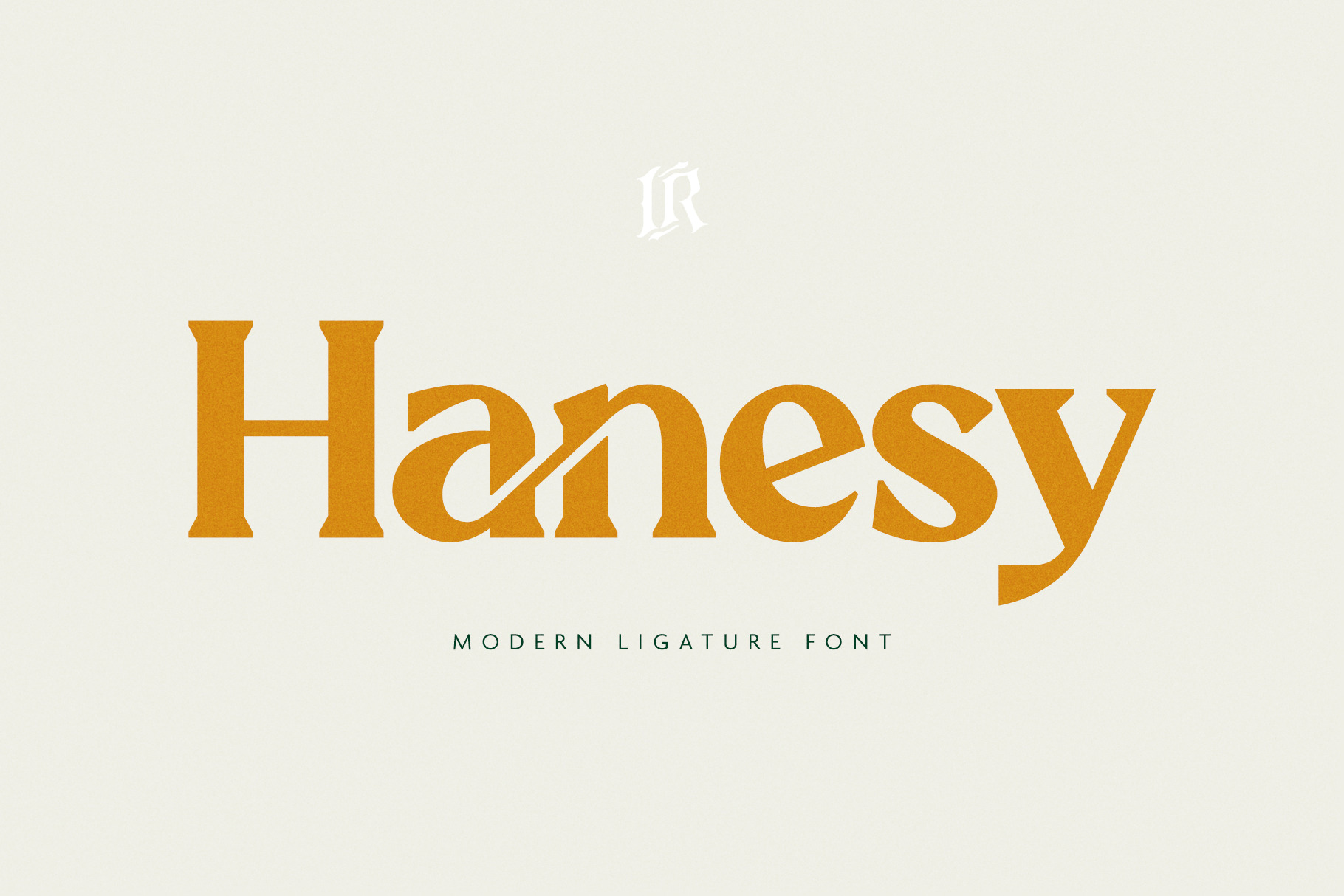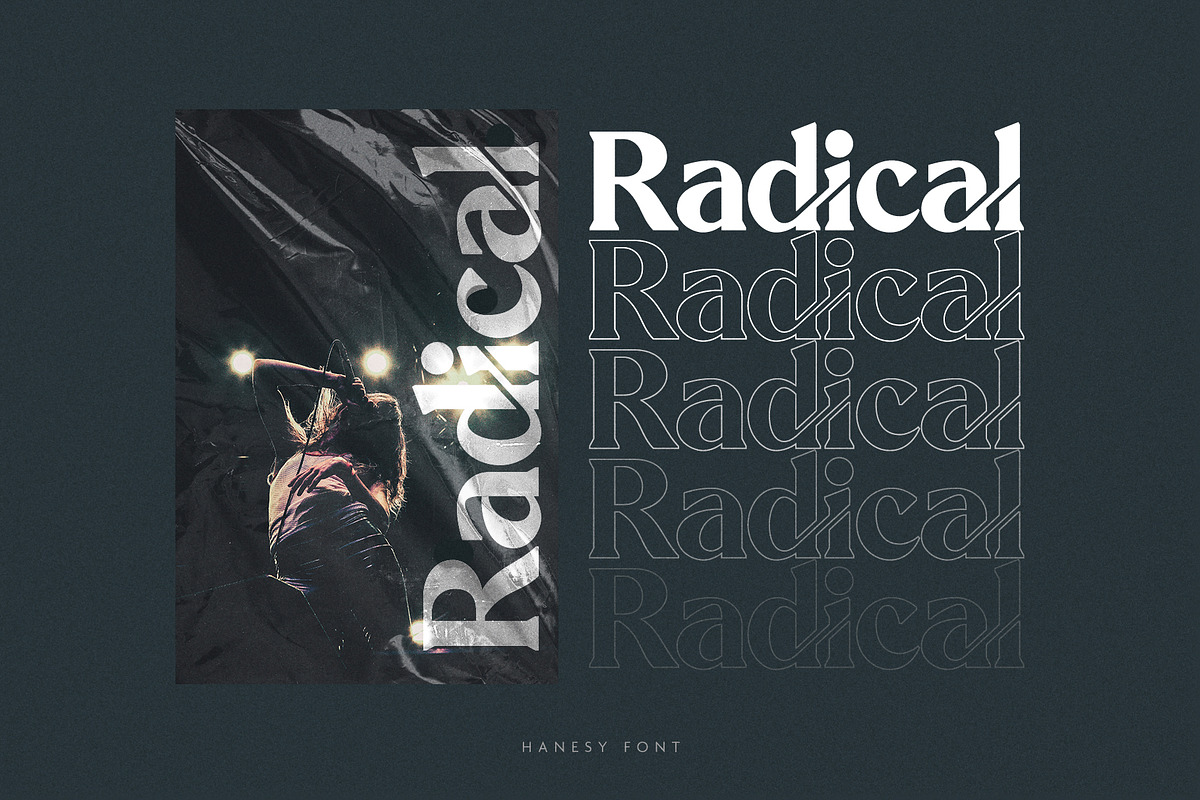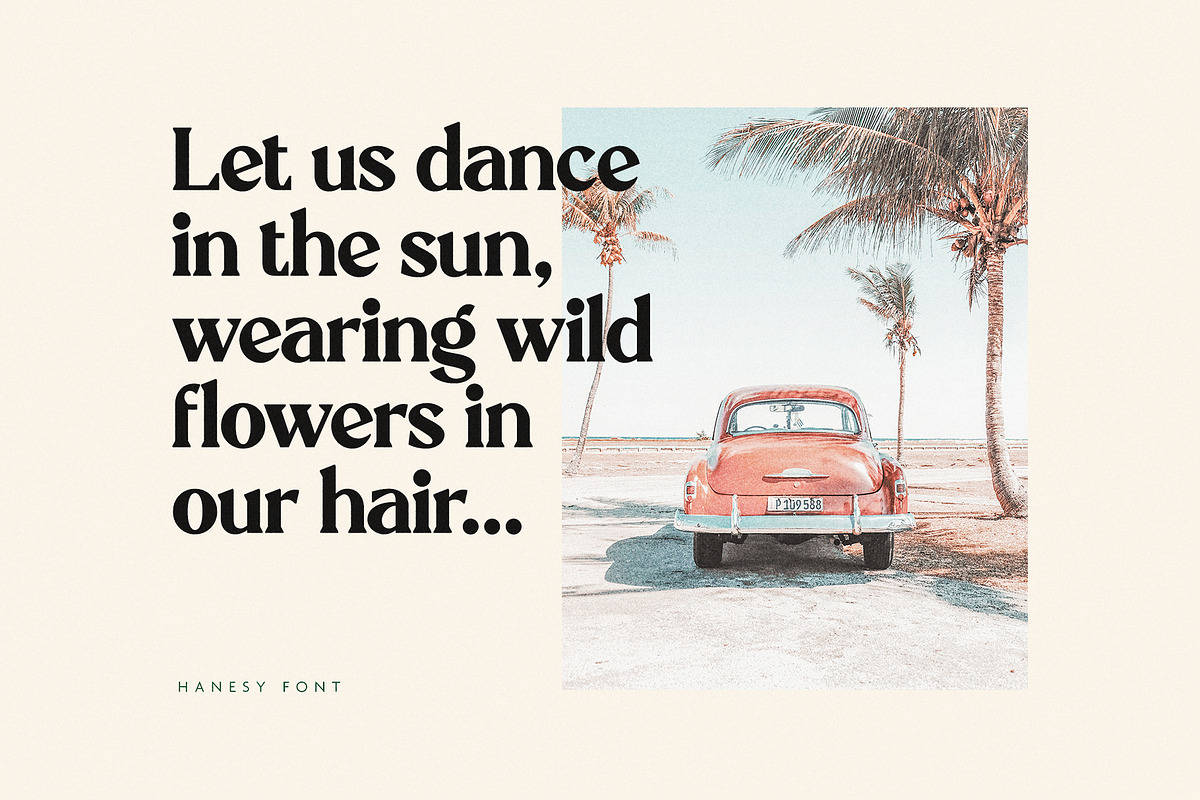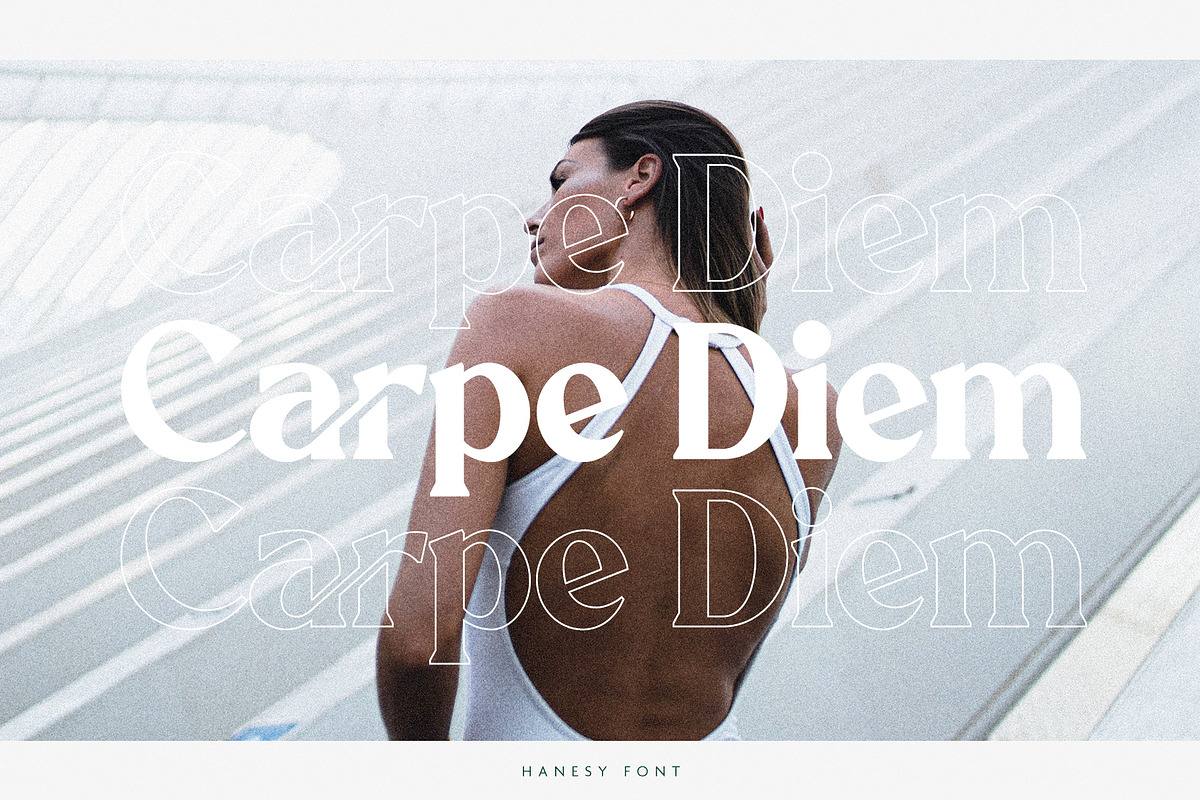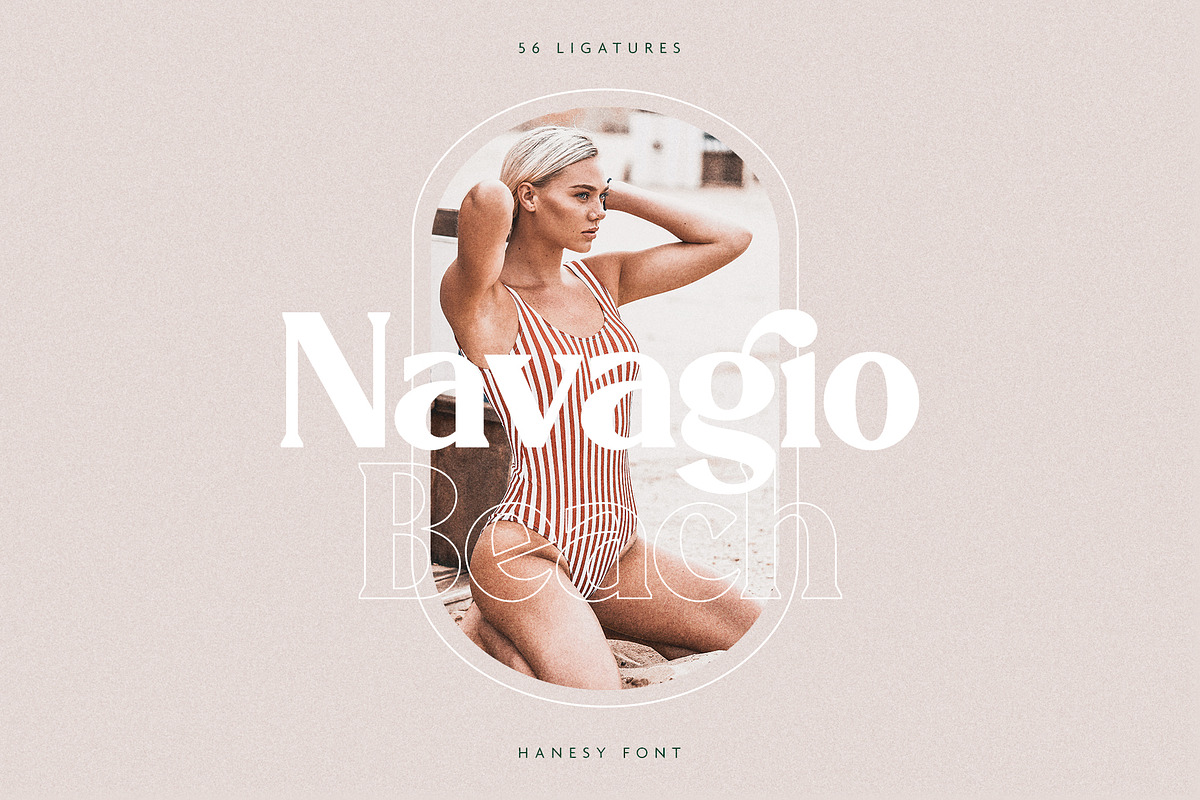
Hanesy - Modern Serif Font
Hanesy is a stylish retro serif font with a touch of modern ligatures. It looks amazing at display sizes and is easily readable in text size. There are two versions of this font : REGULAR and OUTLINE.
Hanesy is a serif font made mainly for headlines, titles, and other short texts and is well-suited for advertising, vintage mood board, branding, logotypes, packaging, titles, editorial design and modern and vintage design.